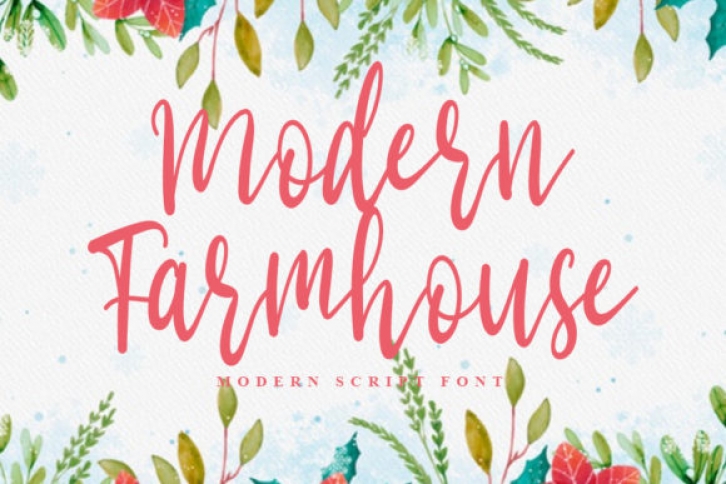
Modern Farmhouse is a lovely and timeless handwritten font. It is the best choice for creating eye catching logos, branding and quotes. Every letter has a unique and beautiful touch, which will make your design come alive!